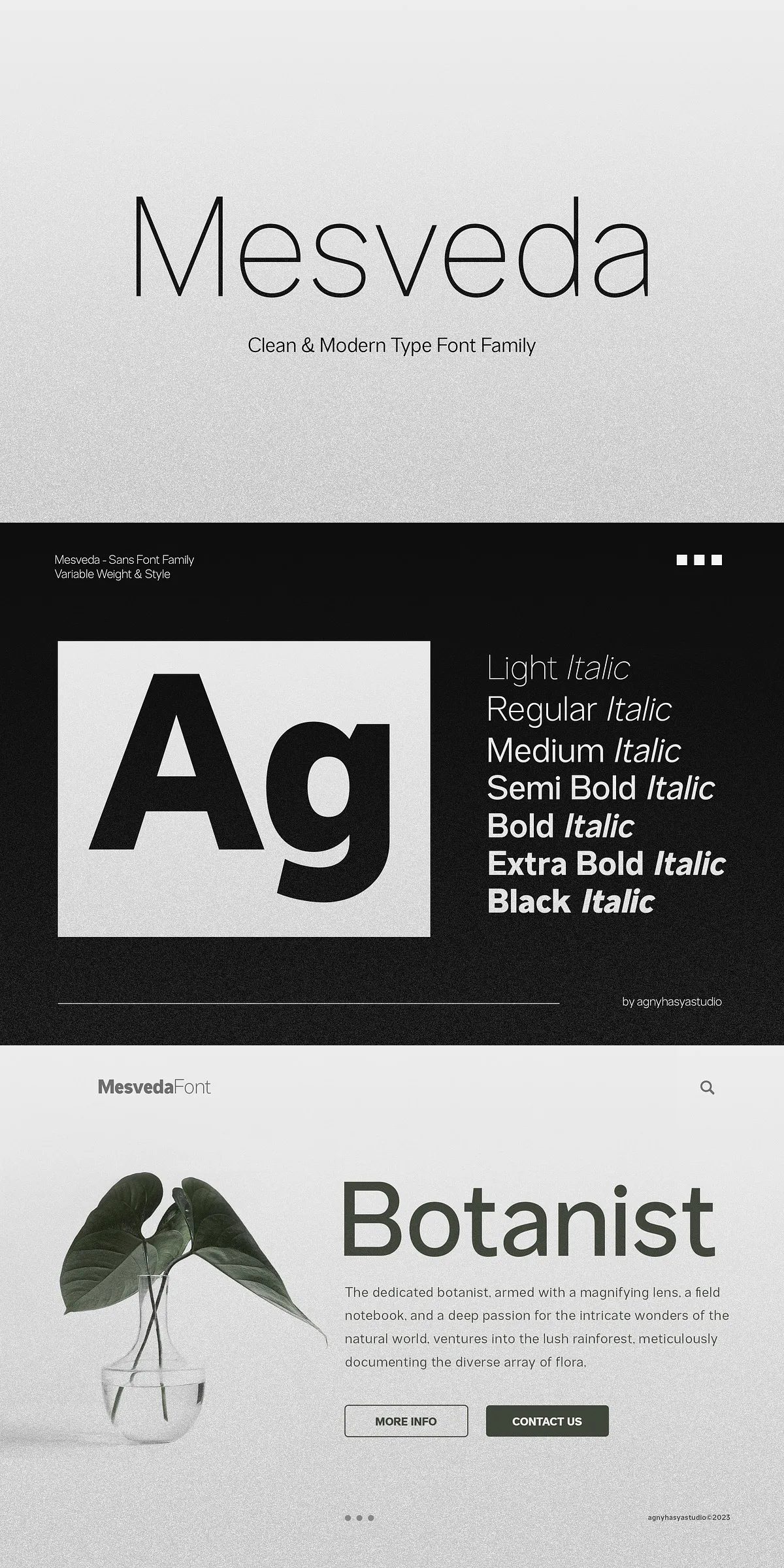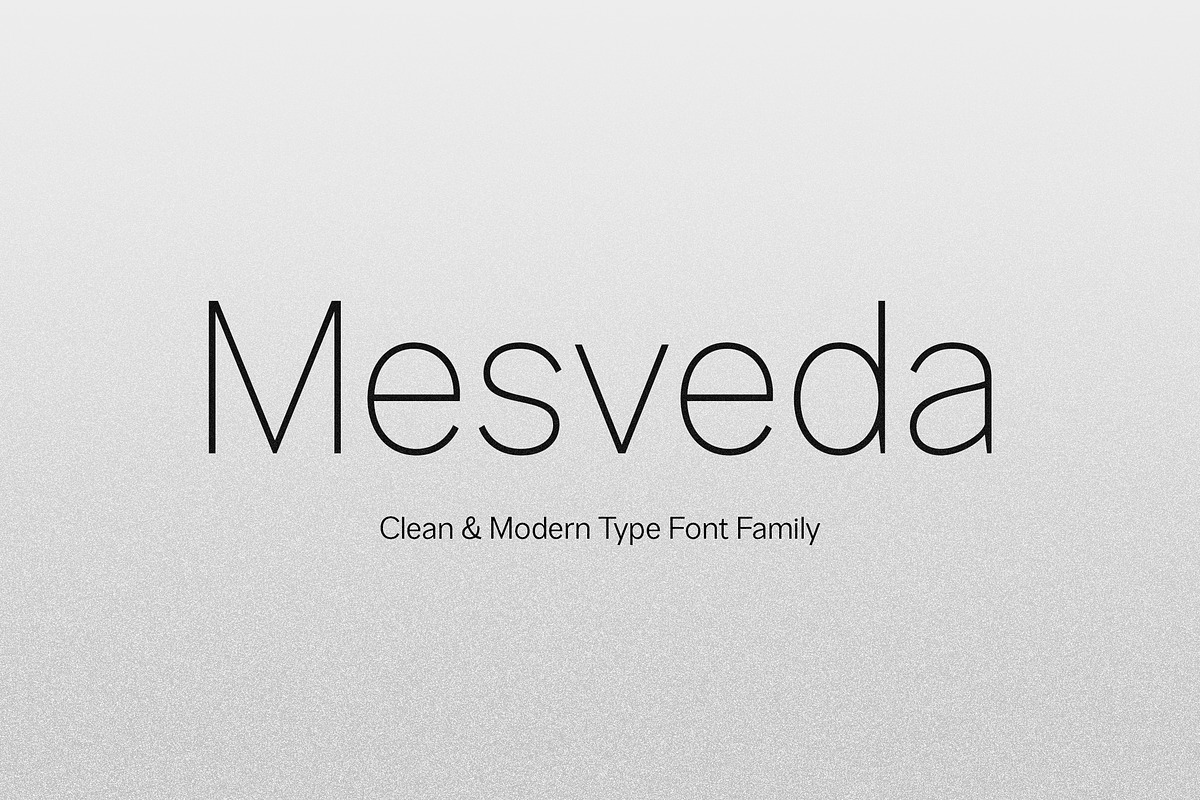
Introducing Mesveda—a bold, confident leap into the heart of modern typography. This isn’t just another sans serif; it’s a versatile, variable typeface engineered for precision, clarity, and visual impact. Designed for the dynamic demands of today’s creatives, Mesveda blends minimalism with maximum expressiveness, giving you the power to craft stunning designs across every medium—without compromise.
Unleash the Power of 14 Dynamic Styles
Mesveda is more than a font family; it’s a complete typographic ecosystem. With an impressive lineup of 14 distinct styles, spanning from delicate Thin to commanding Bold—complete with matching Italic variants—Mesveda gives you unmatched control over hierarchy, mood, and emphasis. Whether you’re crafting a whisper-soft headline or a bold brand statement, there’s a perfect weight to match your vision.
- From Thin to Bold: Achieve subtle contrast with delicate text or command attention with heavy, impactful headlines.
- Italic Variants: Add elegance, motion, or nuanced tone to your copy—perfect for quotes, captions, or stylistic emphasis.
- Variable Font Technology: Leverage weight and width adjustments dynamically within your design software, reducing file size and increasing flexibility.
This level of versatility means you can maintain a consistent, cohesive design language across multiple platforms and applications—without switching fonts or losing authenticity.
Masterfully Crafted Features for Professional-Grade Results
Every element of Mesveda is built with the professional designer in mind. It’s not just clean—it’s intelligent.
- Full Uppercase & Lowercase: Seamlessly switch between cases for branding, headings, and body text.
- Complete Numeral & Punctuation Support: Ensure perfect alignment in pricing, dates, addresses, and more.
- Multilingual Language Coverage: Supports Latin Extended characters, making it ideal for Western European, Central European, and South Eastern European scripts. Expand your project’s reach with confidence.
- Advanced OpenType Features: Access stylistic alternates, ligatures, fractions, and more through your design software’s OpenType panel. Elevate your typography with professional finish details.
These features aren’t add-ons—they’re core to the design philosophy: functionality without friction, beauty without excess.
Design Without Limits: Infinite Applications
Mesveda’s design DNA is built for versatility. It shines in any context where clean lines, modern appeal, and readability matter:
- Web & UI Design: Fast-loading, responsive, and optimized for screens. Ideal for navigation menus, buttons, and interface text.
- Logo & Brand Identity: Create instantly recognizable, scalable logos with a modern, minimalist edge. Perfect for startups, tech brands, and lifestyle companies.
- Advertising & Marketing Campaigns: Make your call-to-actions stand out with crisp, legible, and stylish typography that grabs attention.
- Product Design & Packaging: Deliver a premium look to labels, boxes, and product visuals with a font that feels both innovative and trustworthy.
- Stationery & Print Design: From business cards to letterheads, Mesveda brings instant polish and professionalism.
- Photography & Art Quotes: Pair powerful visuals with elegant, unobtrusive text that enhances rather than distracts.
- Wedding & Event Invitations: Use it for elegant save-the-dates, RSVP cards, and timelines—where simplicity speaks volumes.
- Fashion & Lifestyle Branding: Reflect the clean, confident identity of modern fashion lines, e-commerce brands, and digital publications.
- Book & Magazine Covers: Transform a title into a visual statement with a font that’s bold, modern, and deeply readable.
Design with Clarity, Create with Confidence
Mesveda is designed for creators who value precision, purpose, and beauty. It removes visual noise so your message can shine. With its balanced proportions, subtle character spacing, and robust feature set, Mesveda doesn’t just fit into your design—it defines it.
Whether you’re a seasoned designer or building your first brand, Mesveda empowers you to communicate with clarity and confidence. It’s not just a font. It’s your professional partner in visual storytelling.